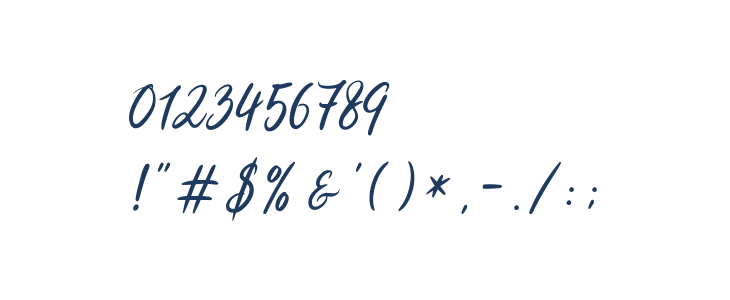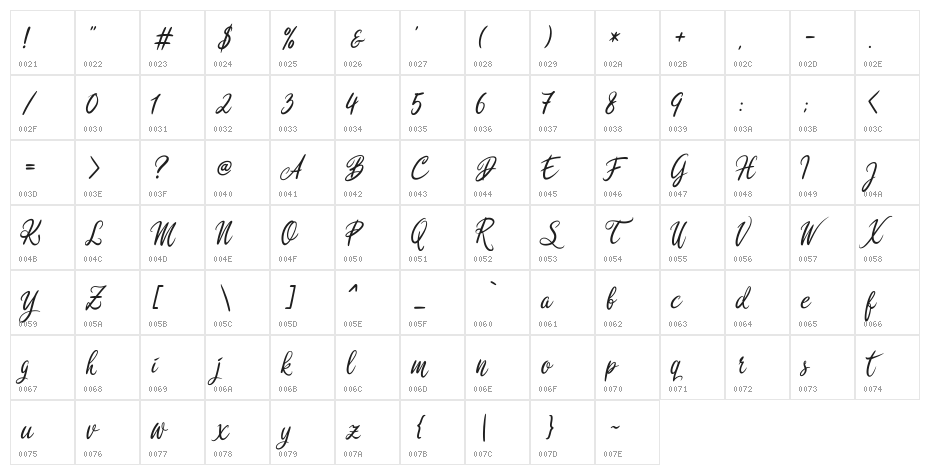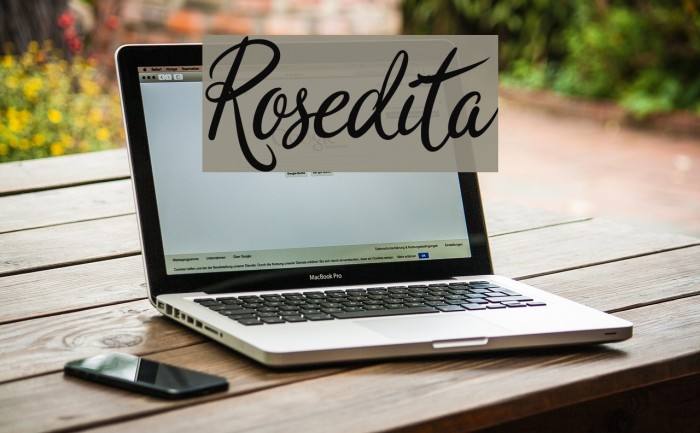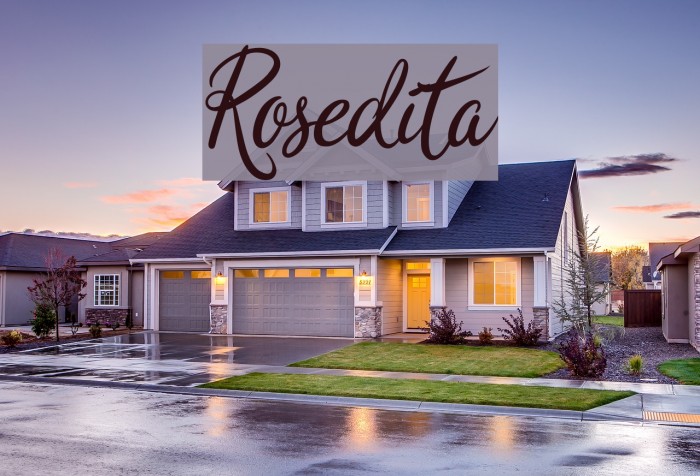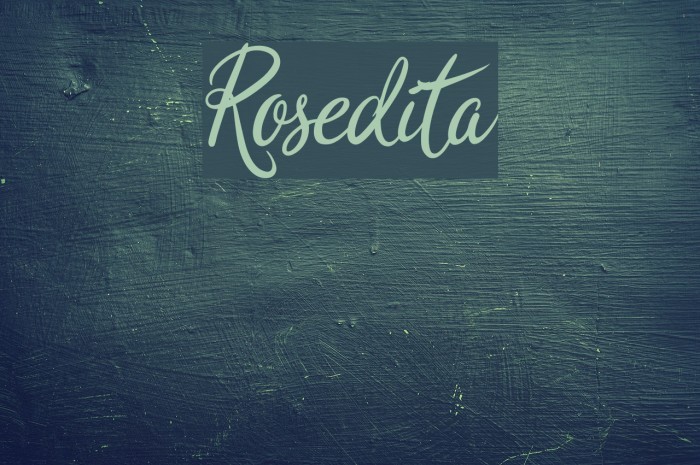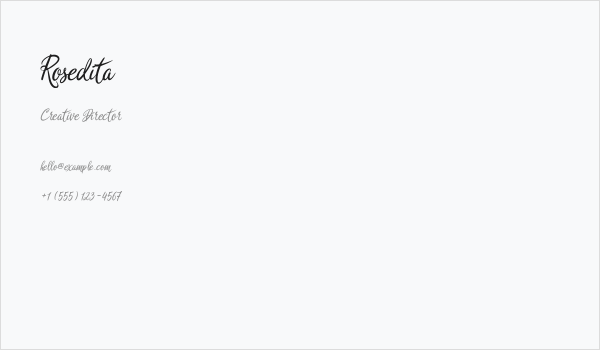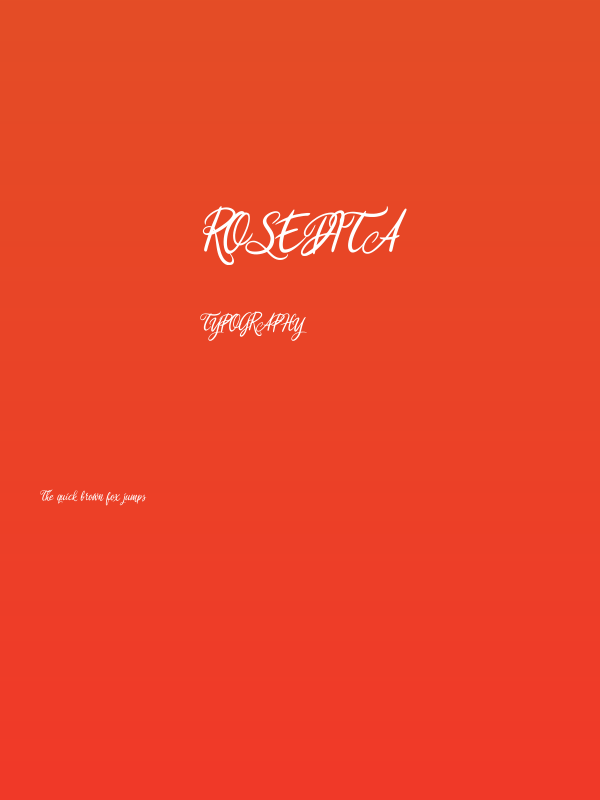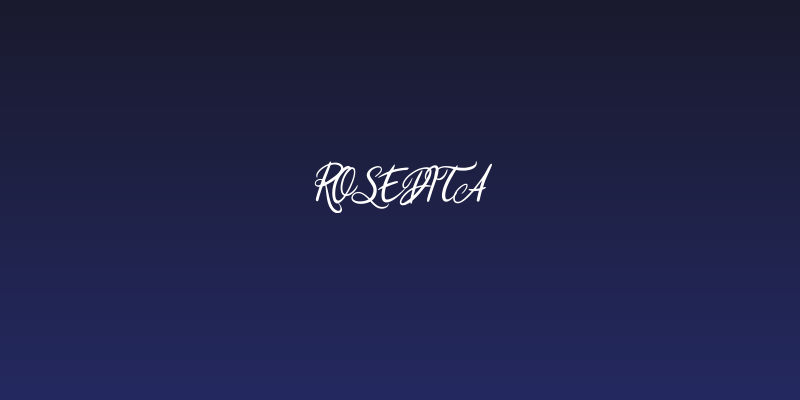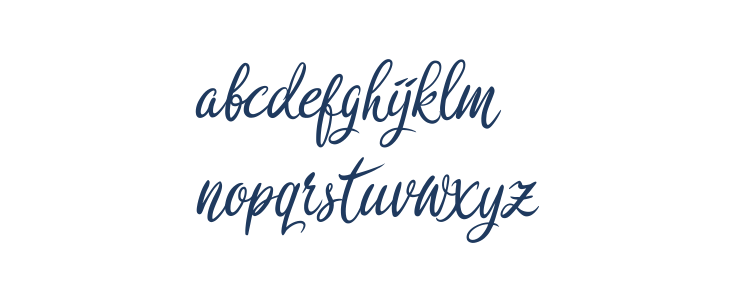
Rosedita Font
Rosedita Description
This elegant script font features flowing, cursive letterforms with a sophisticated and artistic flair. The uppercase letters are ornate, with sweeping ascenders and descenders that create a sense of movement and grace. The lowercase letters maintain a consistent style, offering a harmonious blend of curves and loops. The numerals are designed to match the overall aesthetic, providing a cohesive look across all characters. Special characters are thoughtfully integrated, enhancing the font's versatility. This font is ideal for projects that require a touch of elegance and sophistication.
| Proposed Projects | Wedding invitations, luxury branding, elegant stationery, and high-end product packaging. |